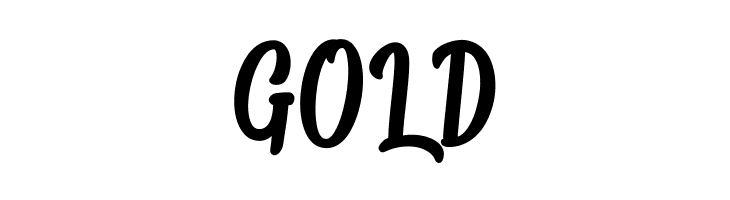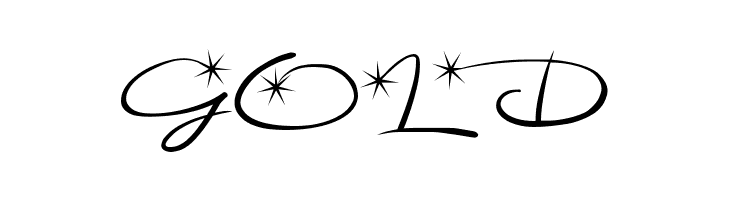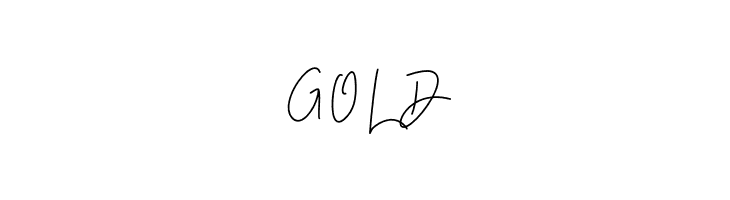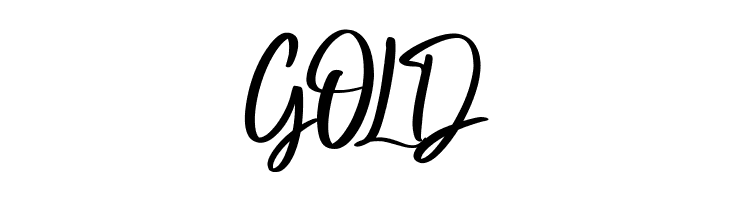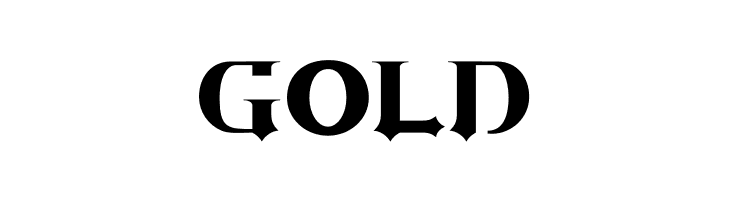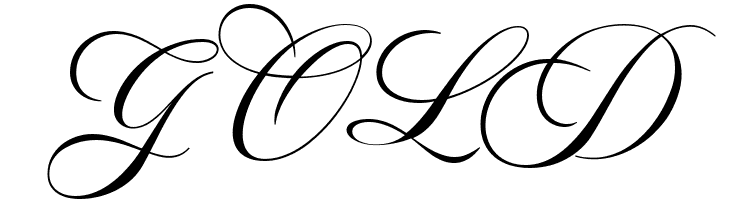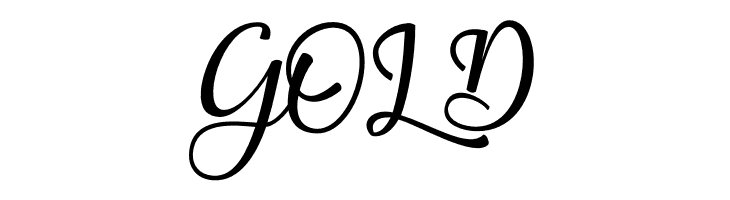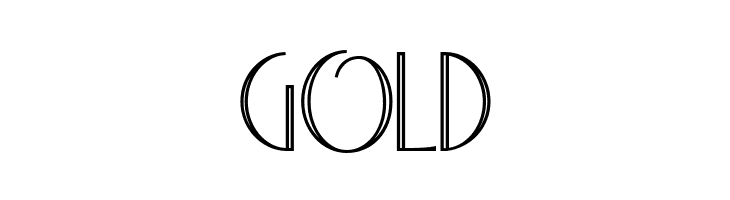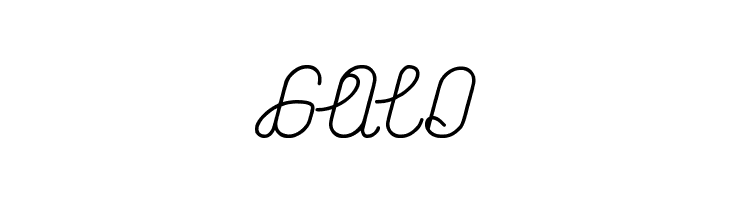
A dramatic, gothic-style font with sharp, jagged edges and a distressed look.
A bold, classic serif typeface with high contrast and elegant serifs.
A bold, italic serif font with a classic and elegant style.
A lively, flowing script font with elegant, cursive letterforms and a handwritten feel.
A playful, rounded font with smooth curves and a friendly appearance.
An elegant, flowing script font with a natural handwriting style.
An elegant, flowing script font with a sophisticated, handwritten style.
Elegant serif font with a classic italic slant and moderate contrast.
A classic serif font with elegant strokes and refined proportions.
A classic serif font with semi-bold weight, offering elegance and readability.
A semi-bold, italic serif font with a classic and elegant style.
A bold, brush-style font with an energetic and artistic feel.
A bold, handwritten font with dynamic brush strokes and expressive letterforms.
An elegant, cursive handwritten font with smooth, flowing strokes.
A decorative serif font with elegant, rounded terminals and a classic-modern blend.
A bold, playful, hand-drawn font with thick, uneven strokes and a whimsical style.
A bold, futuristic font with geometric shapes and angular style.
A distressed, brush-stroke style font with a dynamic and handcrafted appearance.
A bold, playful handwritten font with thick strokes and rounded edges.
A bold serif font with strong, well-defined characters and a modern classic appeal.
A playful, hand-drawn font with bold, rounded characters and a whimsical style.
A playful, bold font with rounded, thick characters for a fun and approachable style.
A spooky, bone-like font with bold, jagged edges.
A modern, dot-based font with a geometric and digital aesthetic.
An elegant, flowing script font with ornate, cursive letterforms.
A modern, minimalist sans-serif font with tall, narrow characters and consistent stroke width.
A modern, thin sans-serif font with a tall, narrow structure and rounded edges.
A modern, sans-serif font with elongated, condensed characters and uniform stroke thickness.
An elegant, cursive font with fluid strokes and a sophisticated style.
A playful, flowing script font with a handwritten style.
A dynamic handwritten font with fluid, expressive letterforms and playful strokes.